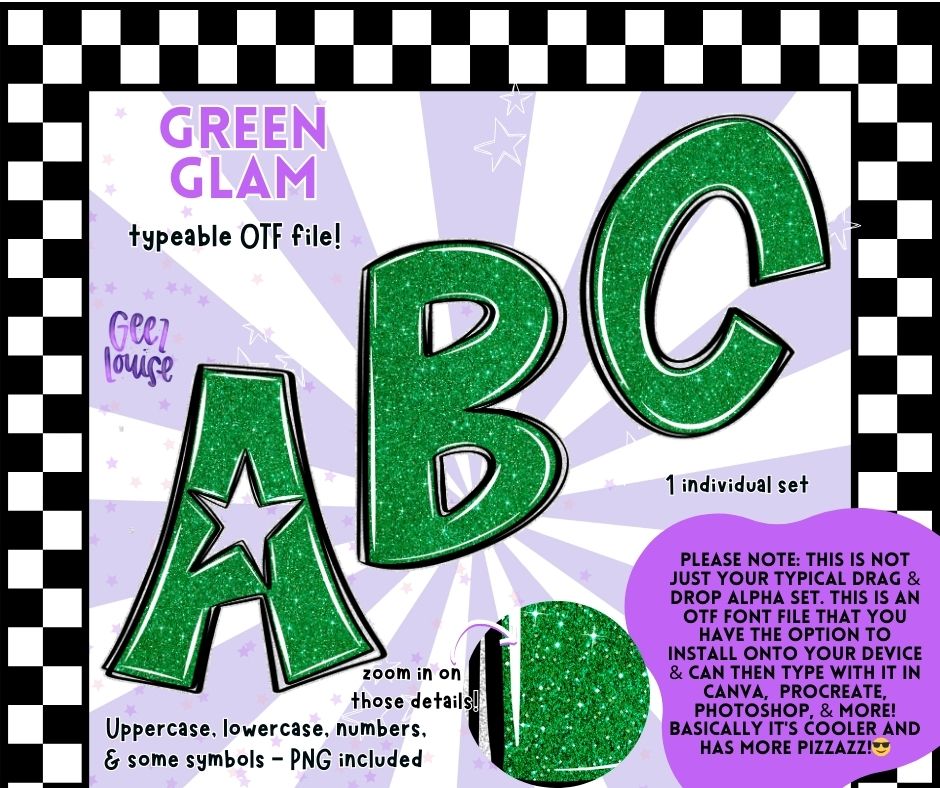
Green Glam - OTF Font + PNG Alpha Set
Say hello to Green Glam, your new go-to font for when you need something that screams bold and boujee. This glittery green OTF alpha isn’t just a pretty face—it’s fully typeable and ready to glam up your next project in Canva, Procreate, Photoshop, and more.
Uppercase & lowercase letters
Numbers + some symbols
Perfect for holiday designs, sports teams, bold branding, or anyone living their best glitter life. 💅